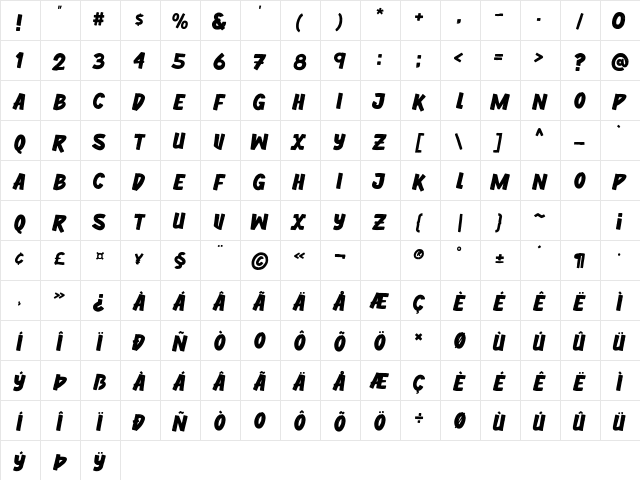
Freelancer Regular
| Foundry | Don Marciano |
| Designer | Juan Miguel Castillo Romero |
Design Context for Freelancer Typeface
Freelancer is a composed and adaptable typeface that performs quietly and consistently across a wide range of design contexts.